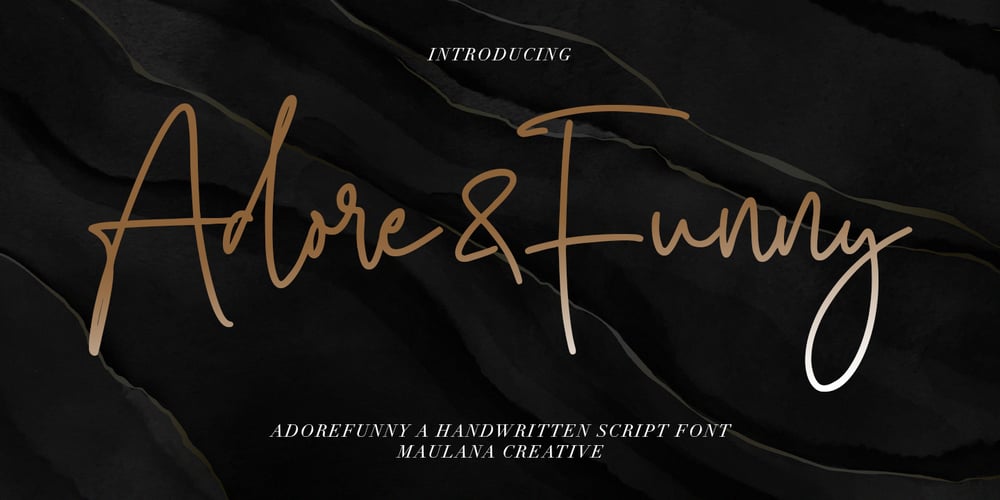
Adorefunny
Adorefunny font
Adorefunny Font Family was designed by Gilang Maulana and published by Maulana Creative. Adorefunny contains 1 styles and family package options. Adorefunny is a Handwritten script font it’s monoline and clean stroke with fun character. It has Opentype features ligature rich to give you an extra creative work. Adorefunny support multilingual more than 100+ language. This font is good for logo design, Social media, Movie Titles, Books Titles, a short text even a long text letter and good for your secondary text font with sans or serif. Make a stunning work with Adorefunny Handwritten font. Cheers, MaulanaCreative